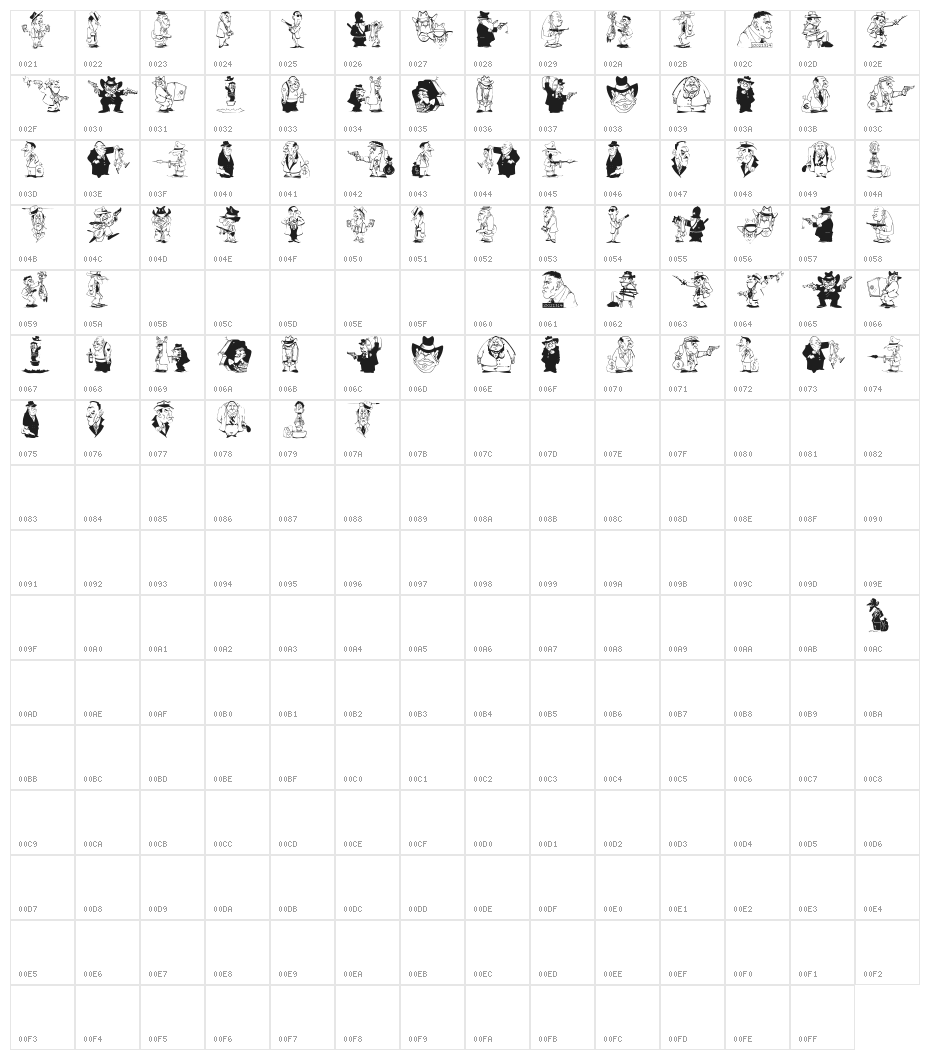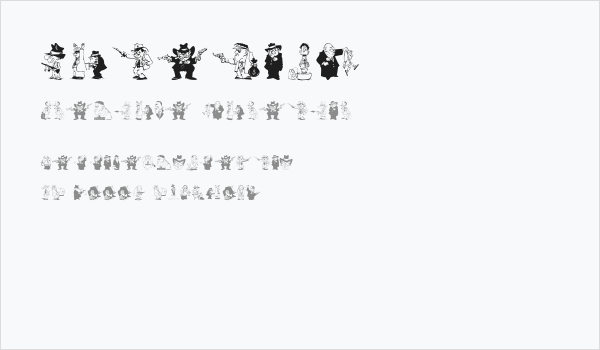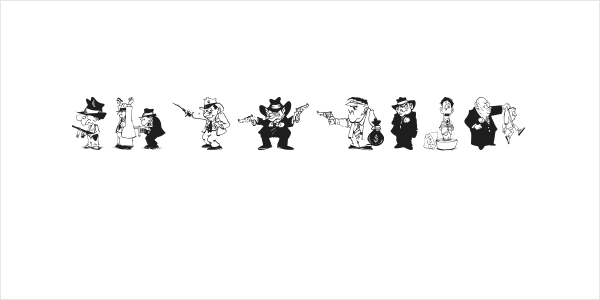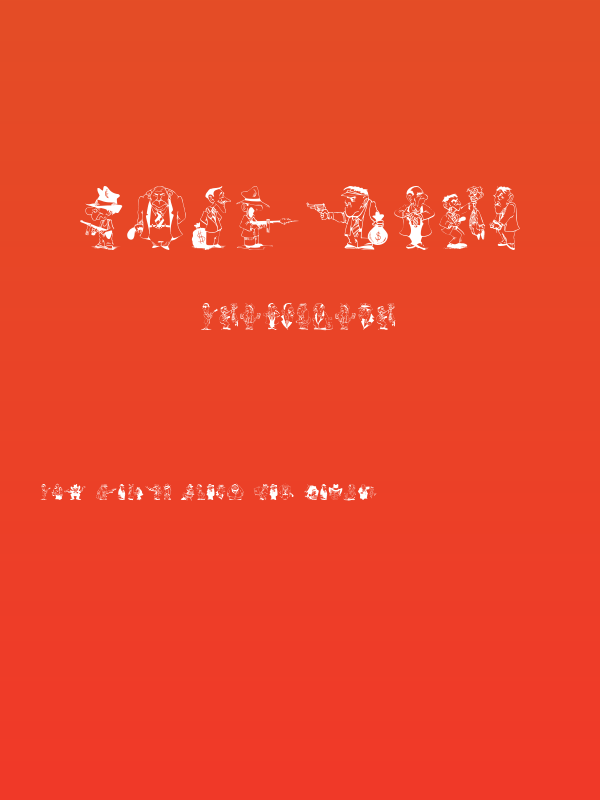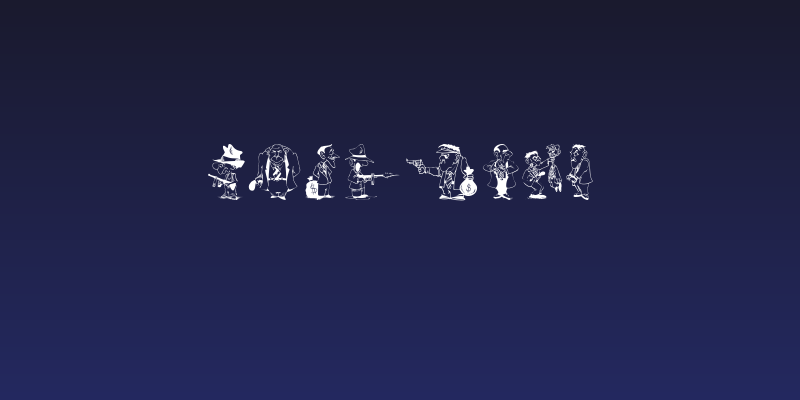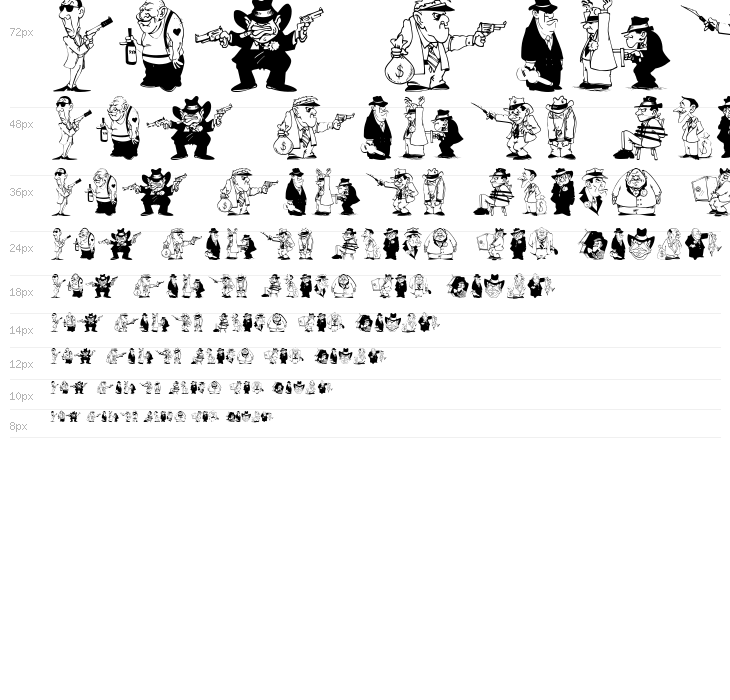
NiceBoys Font
NiceBoys Description
A highly decorative and playful font where each character is represented by a unique cartoon illustration of a gangster or mobster, featuring exaggerated expressions and props such as guns, cigars, and money bags. The characters are detailed, with a hand-drawn, comic style that emphasizes humor and personality.
| Overall Style | Decorative, Playful, Comic |
| Use Case | Logos, Headlines, Posters, Themed Events |
| Proposed Projects | ChildrenΓ’β¬β’s books, comic titles, party invitations, themed posters, novelty merchandise, entertainment branding. |